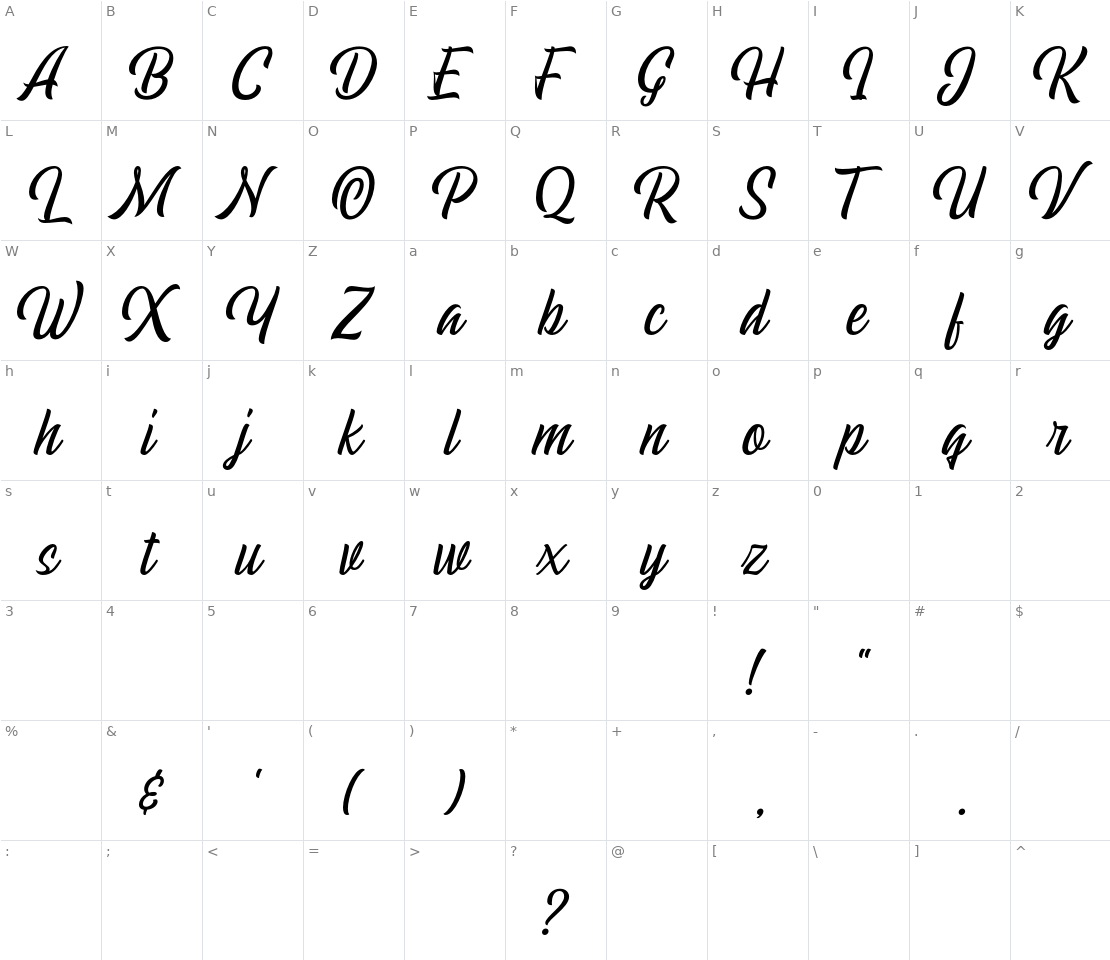
Echomotors Script
Echomotors Script is a bold, connected script from Runsell Studio with a retro slant that recalls mid-century signage and automotive branding. The letterforms flow with a confident, slightly tilted rhythm, thick enough to hold their own in headlines and logos without losing that easygoing, hand-lettered warmth. It sits comfortably in vintage-inspired branding, packaging, and poster work where you need something with character and weight.